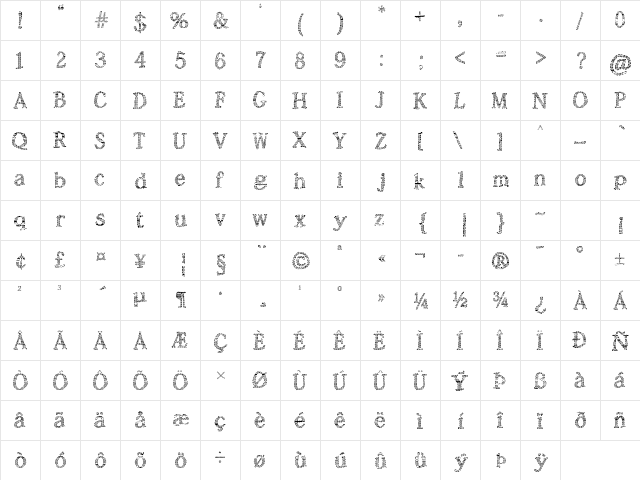
Rochester Thee Regular
| Designer | Luz Collioud |
Design Context for Rochester Thee Typeface
Rochester Thee takes a measured approach to typography — its balanced proportions and neutral character make it a reliable workhorse for both digital and print work.